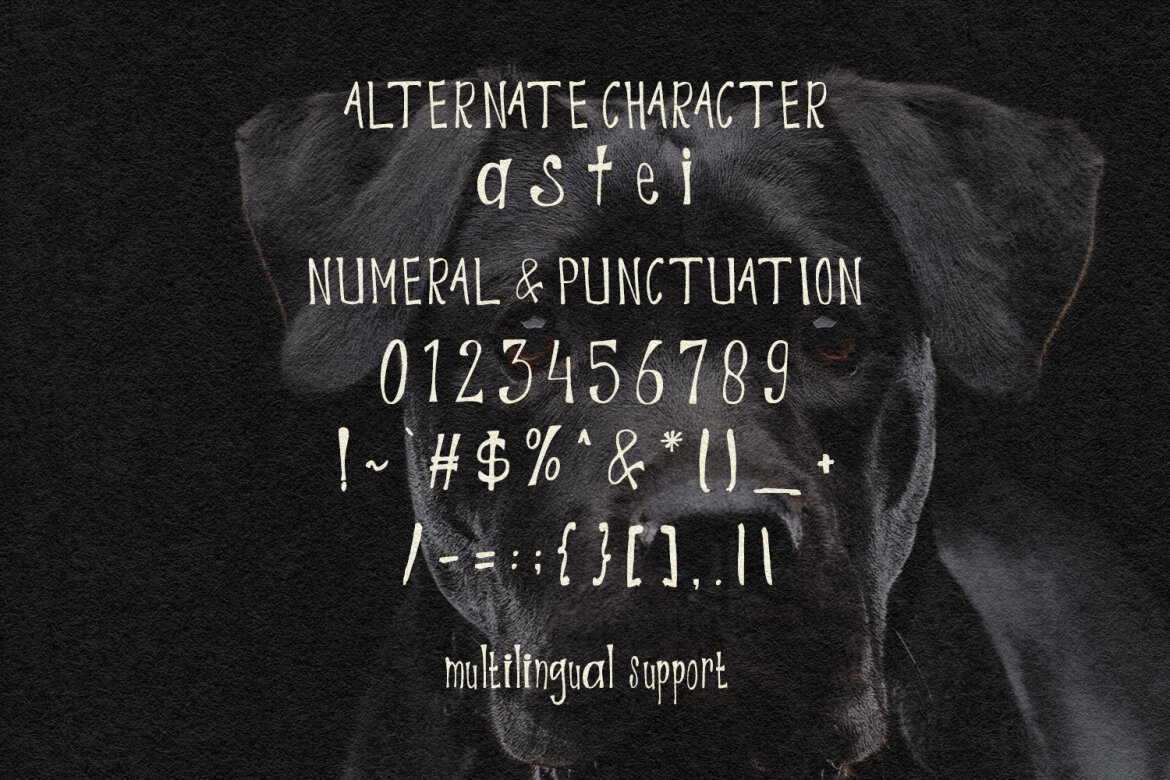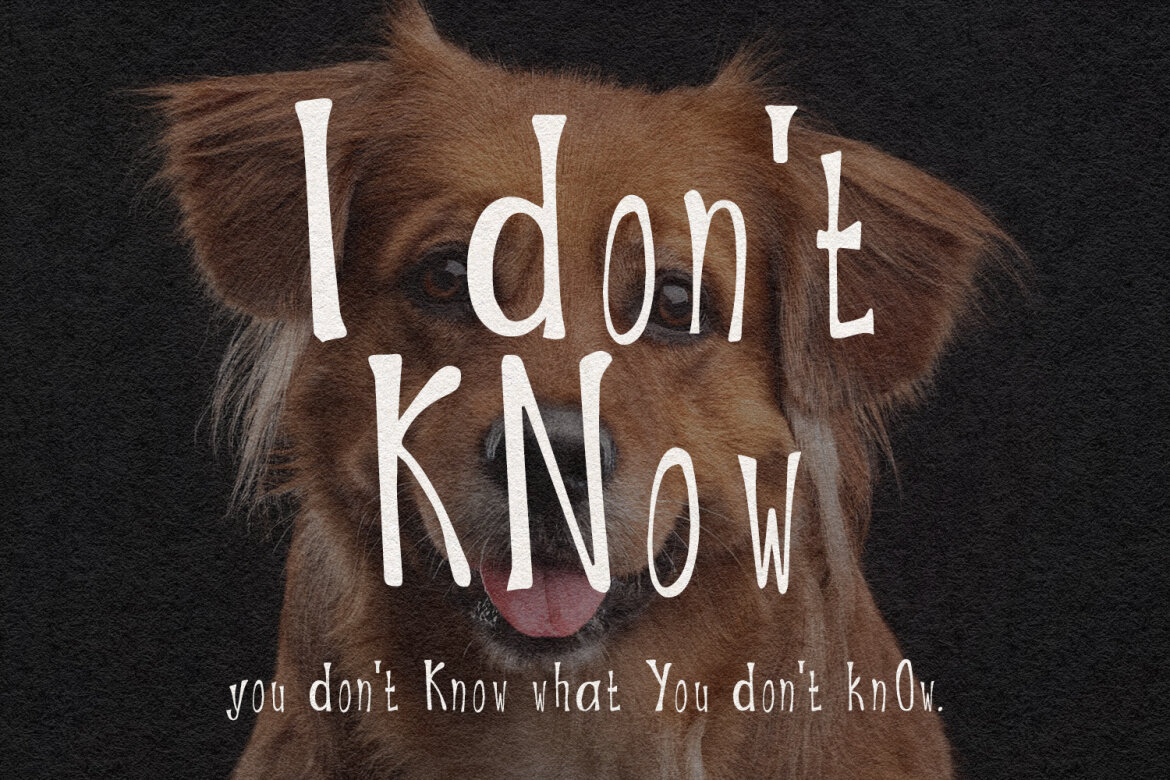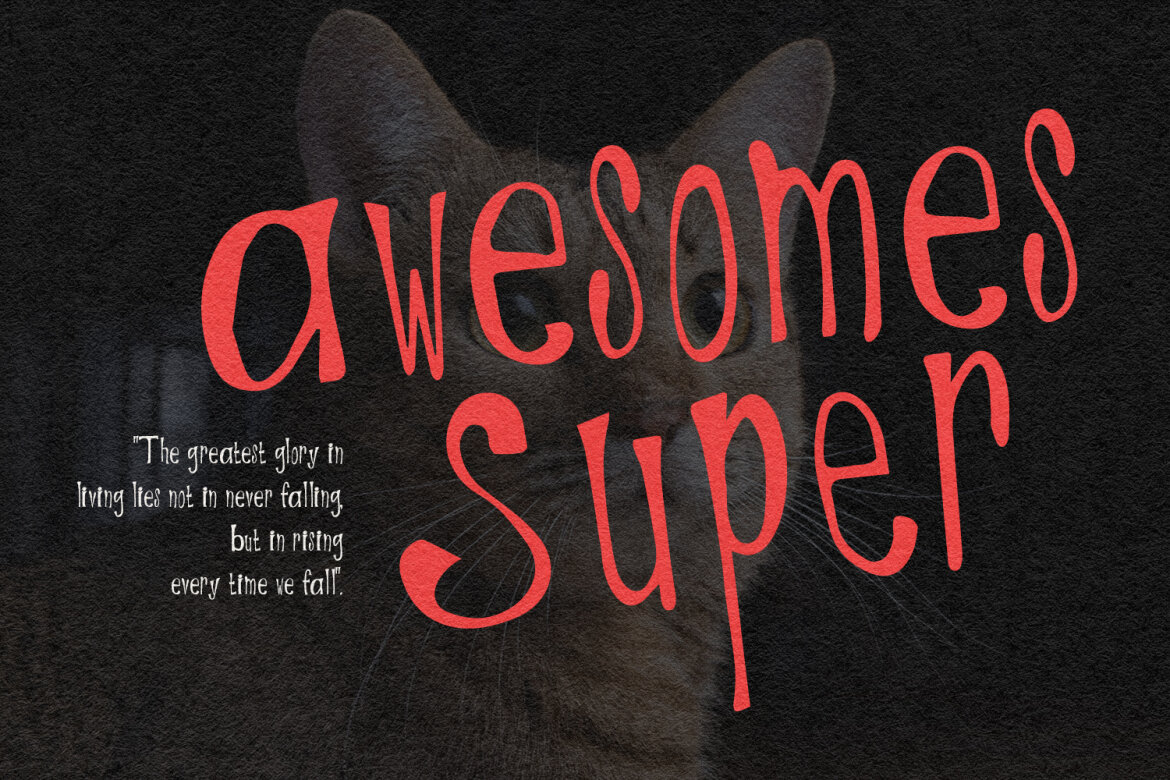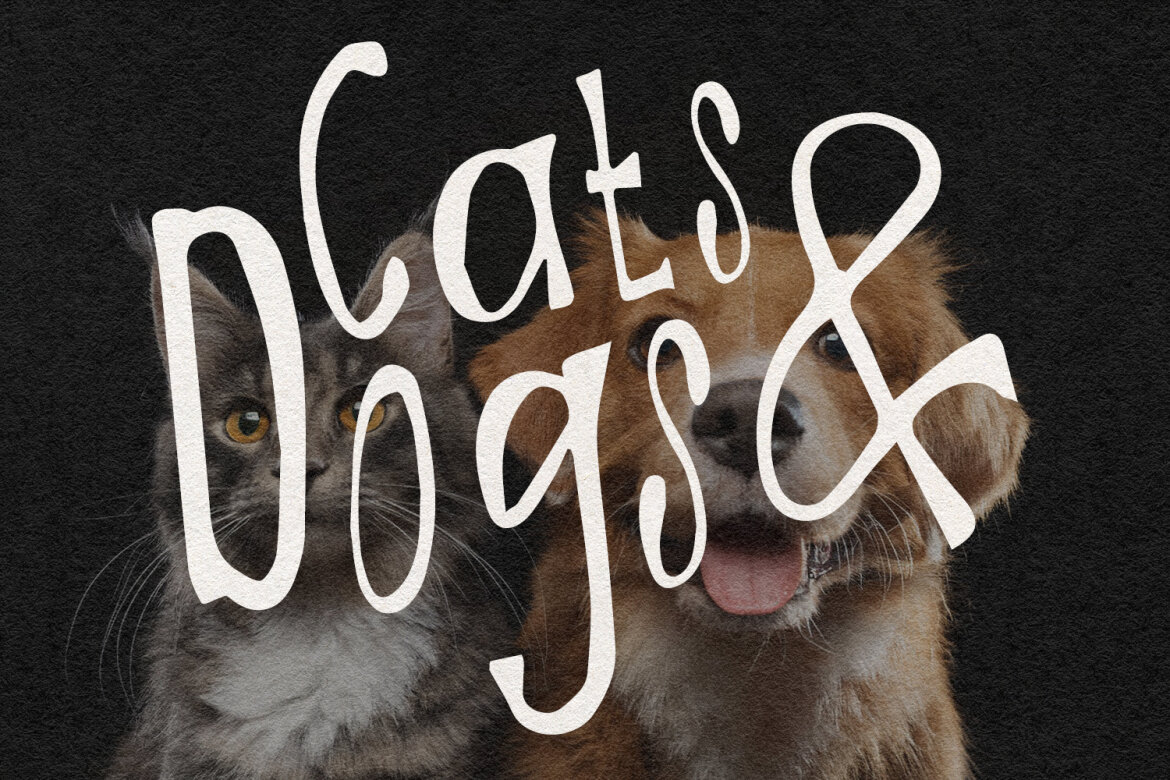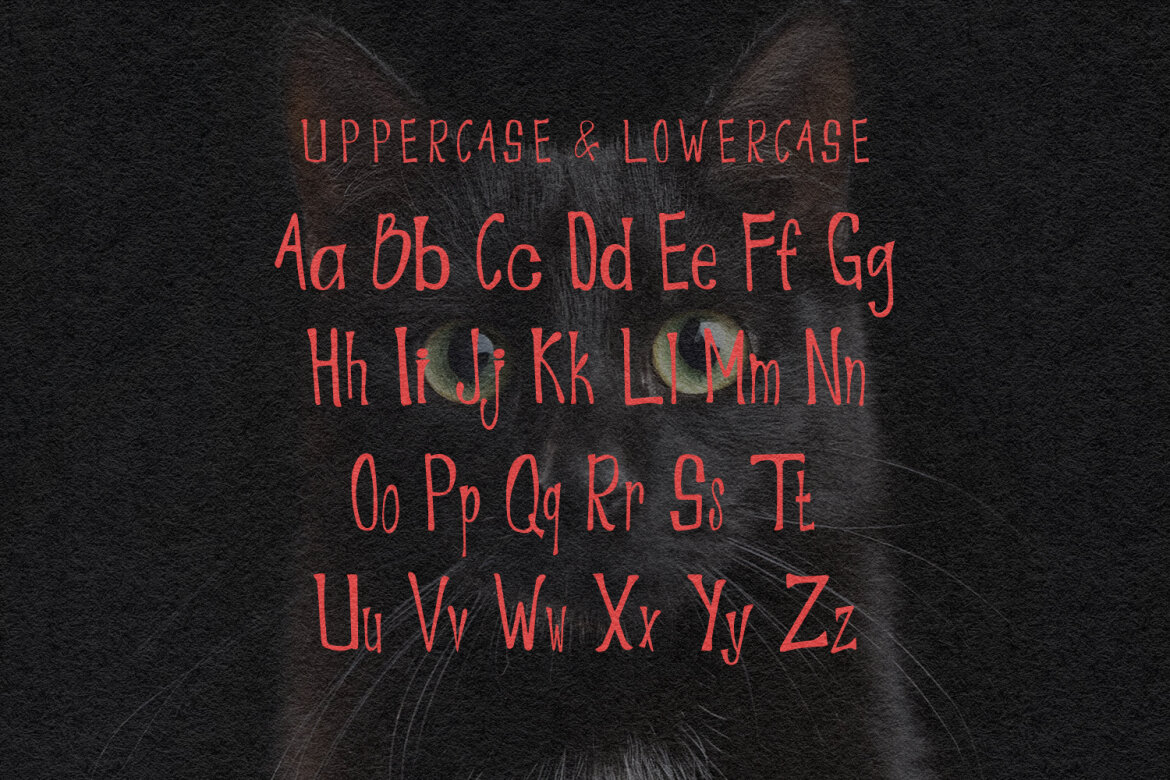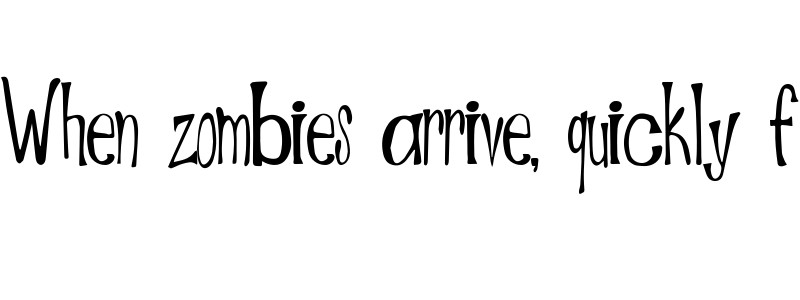
Hiello Moncahus Handmade FREE Font
Give your designs an authentic brush handcrafted feel. “Hiello Moncahus” is perfectly suited to signature, stationery, logo, typography quotes, website header, branding and more.